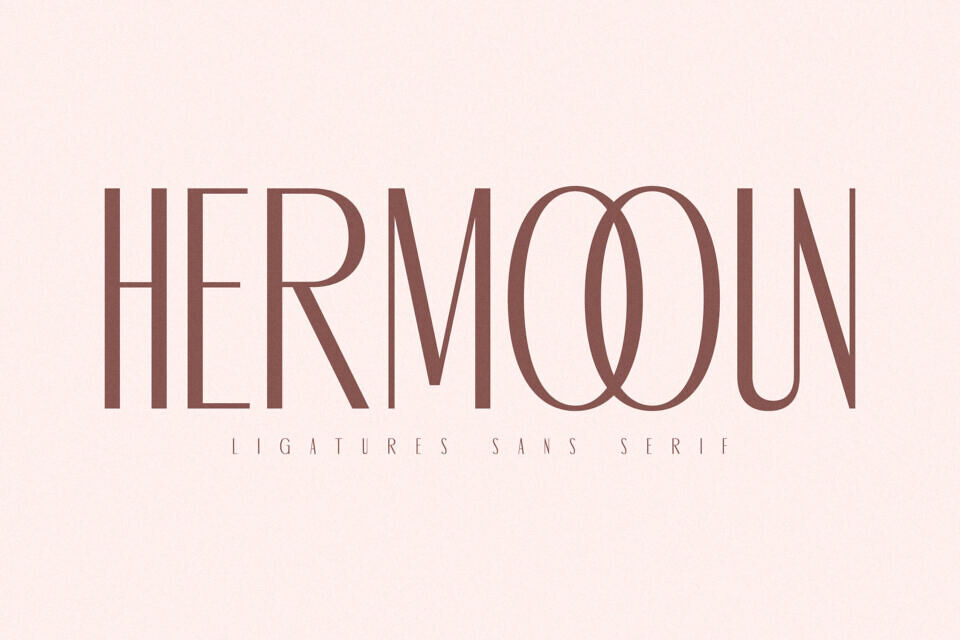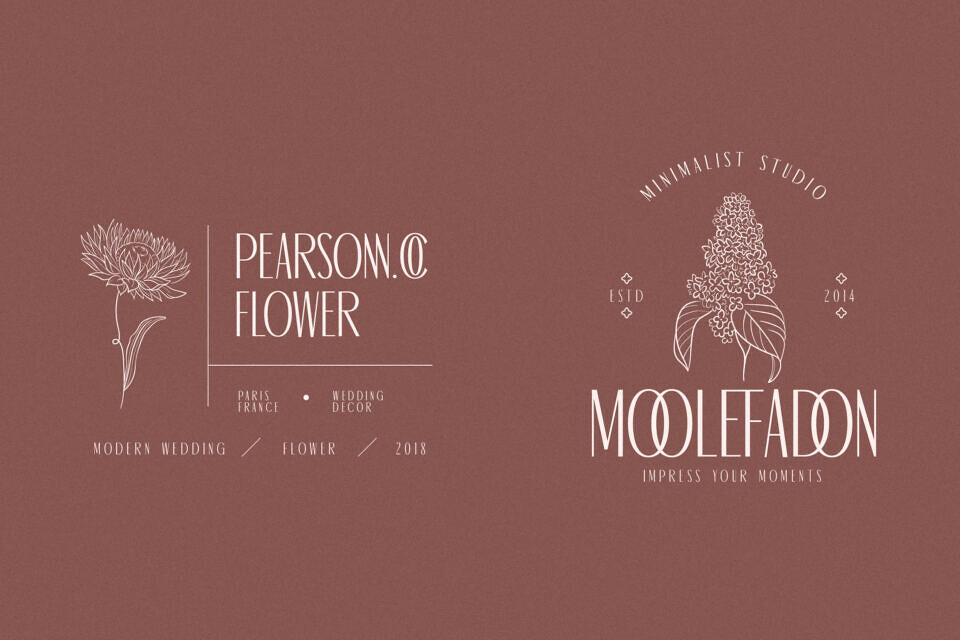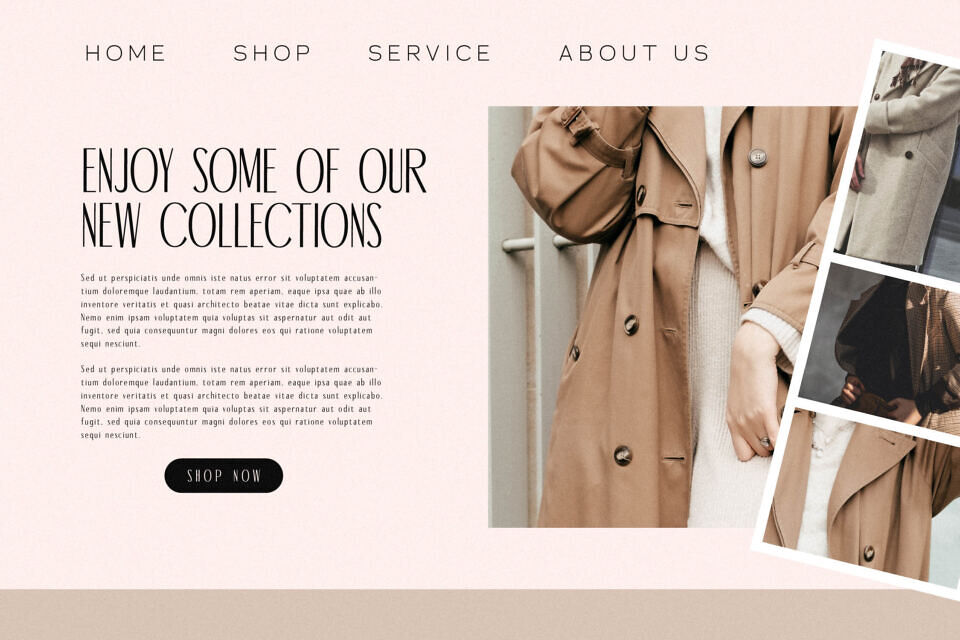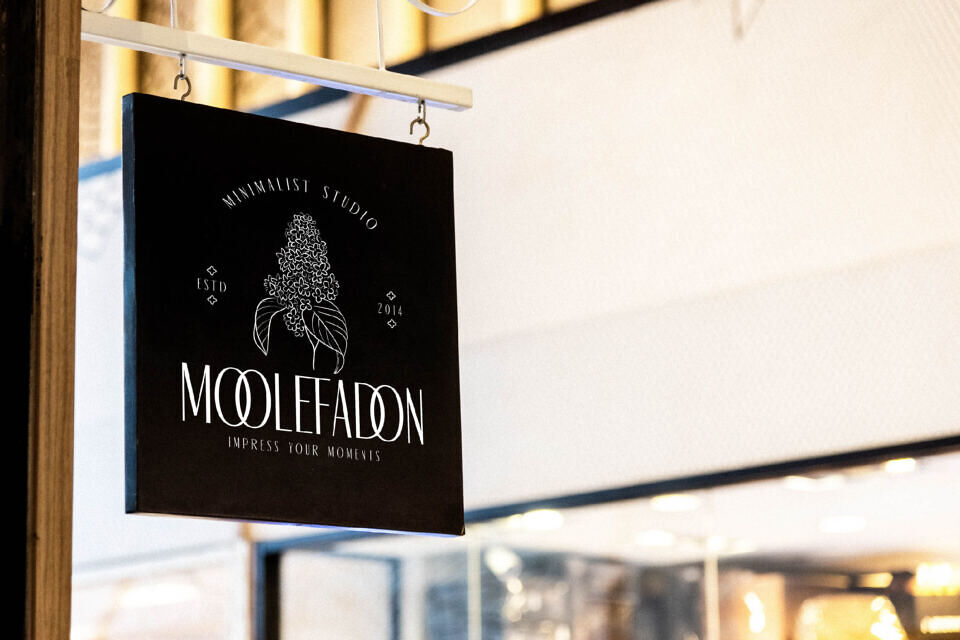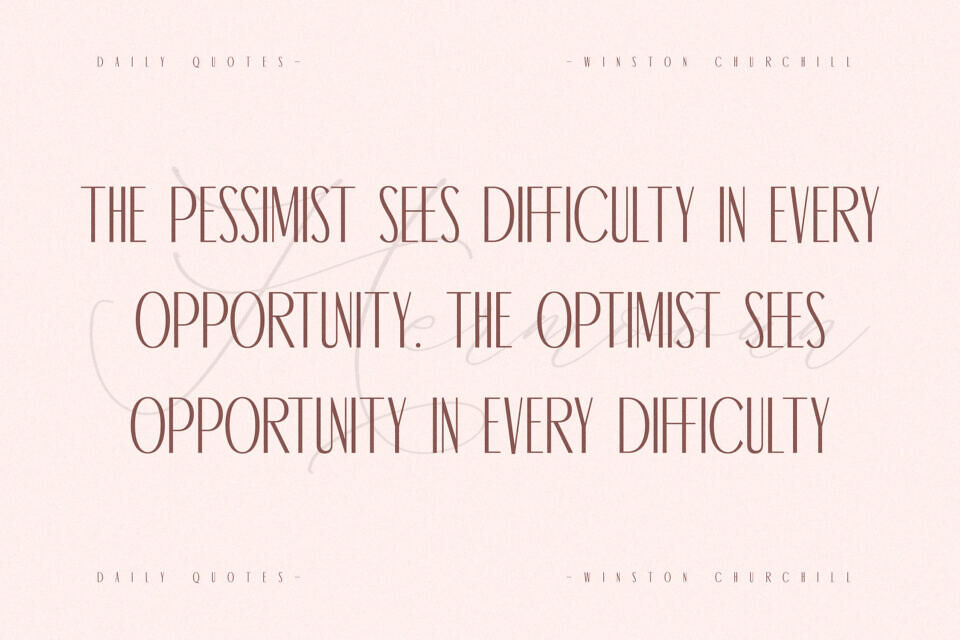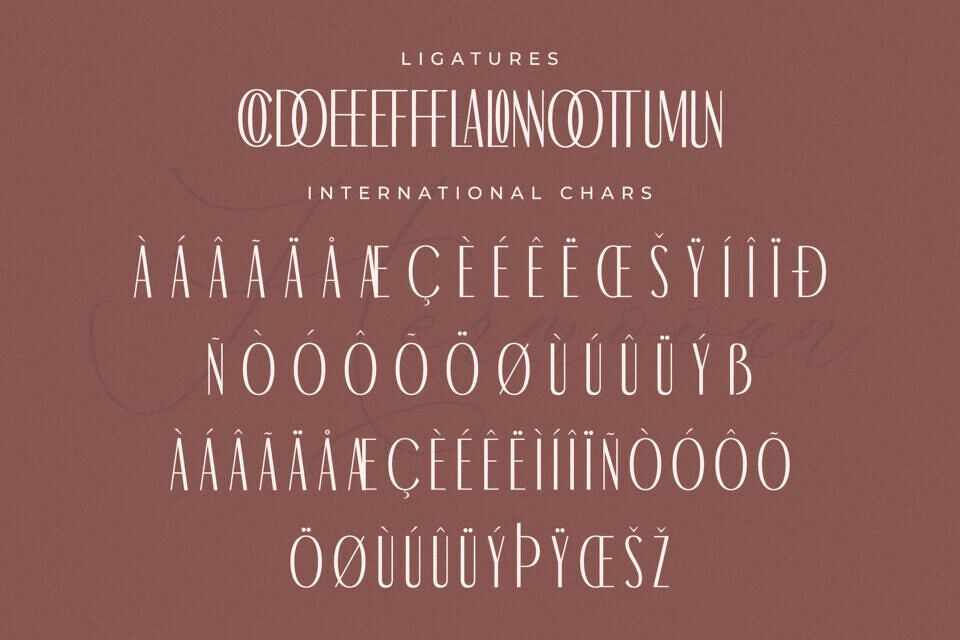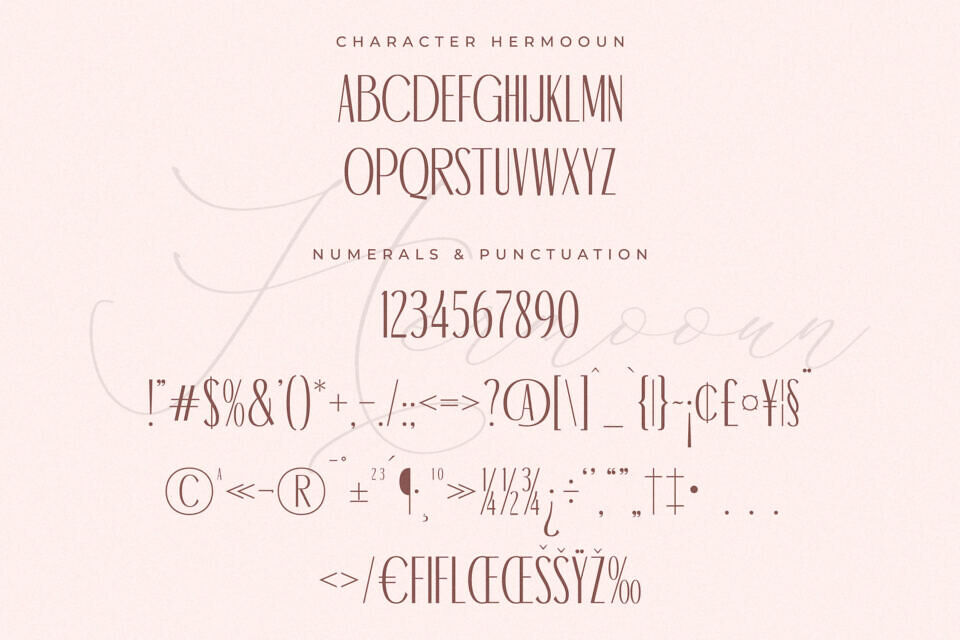
Hermooun is a modern and classic sans serif display typeface that has its own unique style and modern look. This typeface is perfect for an elegant & luxurious logo, book or movie title design, fashion brand, magazine, clothes, lettering, quotes, and so much more.